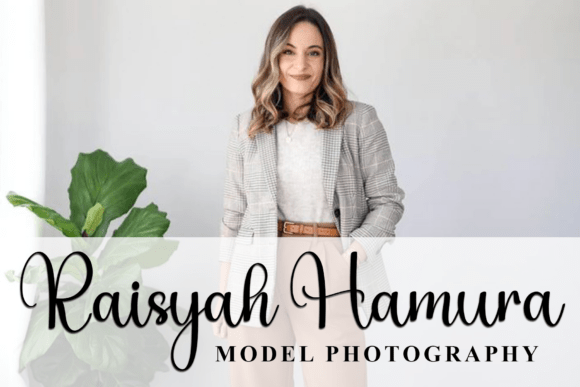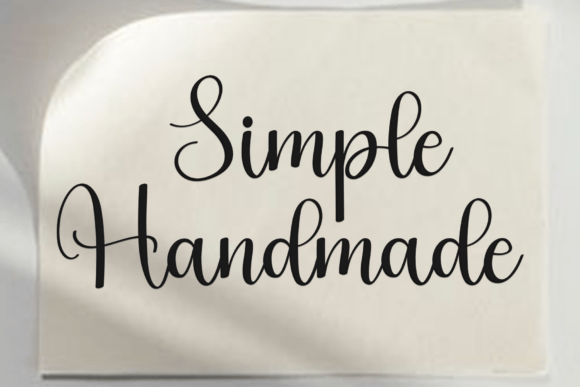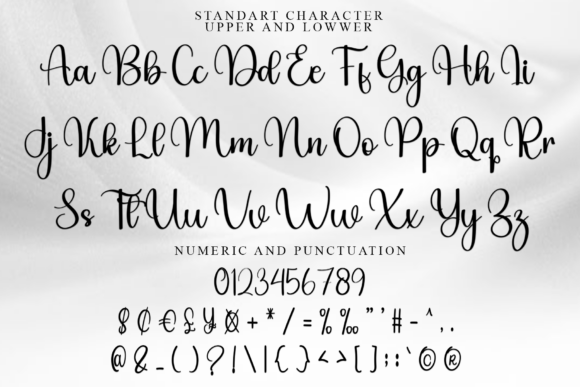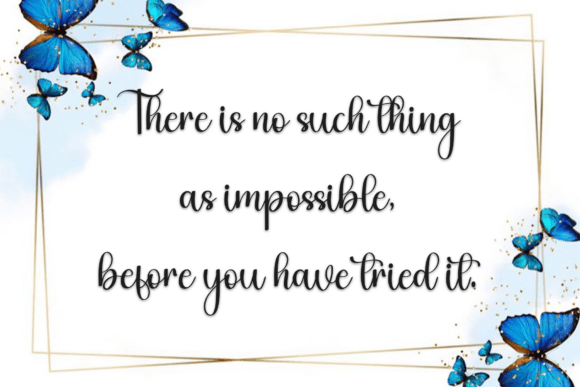
Deck the Halls with Typography: The Magic of Baby Magnolia Font
As the snowflakes start to fall and the holiday lights begin to twinkle, there’s something special about this time of year that sparks creativity and joy. For many of us, it’s the perfect moment to break out the festive decorations, bake some sweet treats, and get crafty with our loved ones. And what’s a holiday project without the perfect typography to match the magic of the season?
That’s where the enchanting Baby Magnolia Font comes in – a merry and whimsical typeface that captures the essence of the holiday spirit. With its beautiful, decorative elements and playful flair, this font is the perfect addition to your holiday designs, from greeting cards to gift tags and beyond. As a designer, you know the value of a well-chosen font in elevating your work, and Baby Magnolia Font is sure to bring a touch of warmth and nostalgia to your creations.
Baby Magnolia Font Key Features
- Size: Baby Magnolia Font comes in 5 different font weights, including Light, Regular, Medium, Bold, and Black.
- Unique Character: The font features a unique, elegant, and cursive script style that makes it perfect for wedding invitations, greeting cards, and other special occasions.
- Language Support: Baby Magnolia Font supports a wide range of languages, including English, Spanish, French, German, Italian, and many more.
- Font Pairing: The font pairs well with other script fonts, such as Pacifico and Great Vibes, and can also be used with sans-serif fonts like Open Sans and Lato.
Baby Magnolia Font Review
I recently had the chance to work with the Baby Magnolia font, and I must say it’s a unique and charming choice for any design project. ✨ The font’s vintage feel and delicate curves make it perfect for adding a touch of whimsy and femininity to your designs.
Here are some of the things that work well with Baby Magnolia:
- ✨ Beautiful, hand-drawn feel that adds a personal touch to your designs
- ✨ Versatile and suitable for a wide range of design projects, from invitations to greeting cards
- ✨ Easy to read, even in smaller font sizes
- ⚠️ Limited character set, which may cause issues for longer text blocks
- ⚠️ May not be suitable for large-scale or high-contrast designs
Overall, I think Baby Magnolia is a lovely font that can add a touch of elegance and sophistication to your designs. While it may have some limitations, it’s definitely worth considering for the right project. With a little creativity and planning, you can make the most of this charming font.
Tips: Use the Baby Magnolia Font for creating a whimsical and playful atmosphere in your designs. Pair it with pastel colors and floral elements for a cohesive look.
Tips: Use the Baby Magnolia Font for creating custom watermarks, logos, or graphics. Experiment with layer blending modes and opacity to achieve a unique look.
Tips: Use the Baby Magnolia Font for creating visually appealing presentations or documents. Pair it with bold headings and colorful graphics to capture attention.
The Baby Magnolia Font is ideal for:
Children’s book illustrations
Floral-themed designs
Playful branding and logos